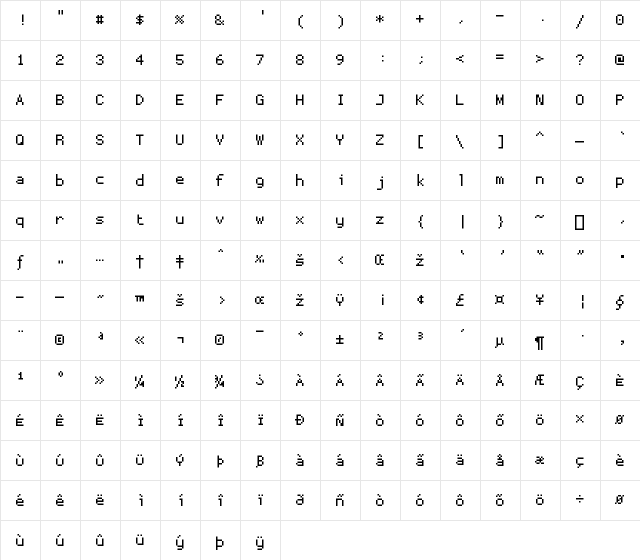
ProggyTinyTT Regular
Design Context for ProggyTinyTT Typeface
ProggyTinyTT offers clean, dependable letterforms without strong stylistic allegiance, making it a practical choice for designers who need flexibility.
Pro Tip: Use ProggyTinyTT in both headline and body roles to test its range before committing to a single application.